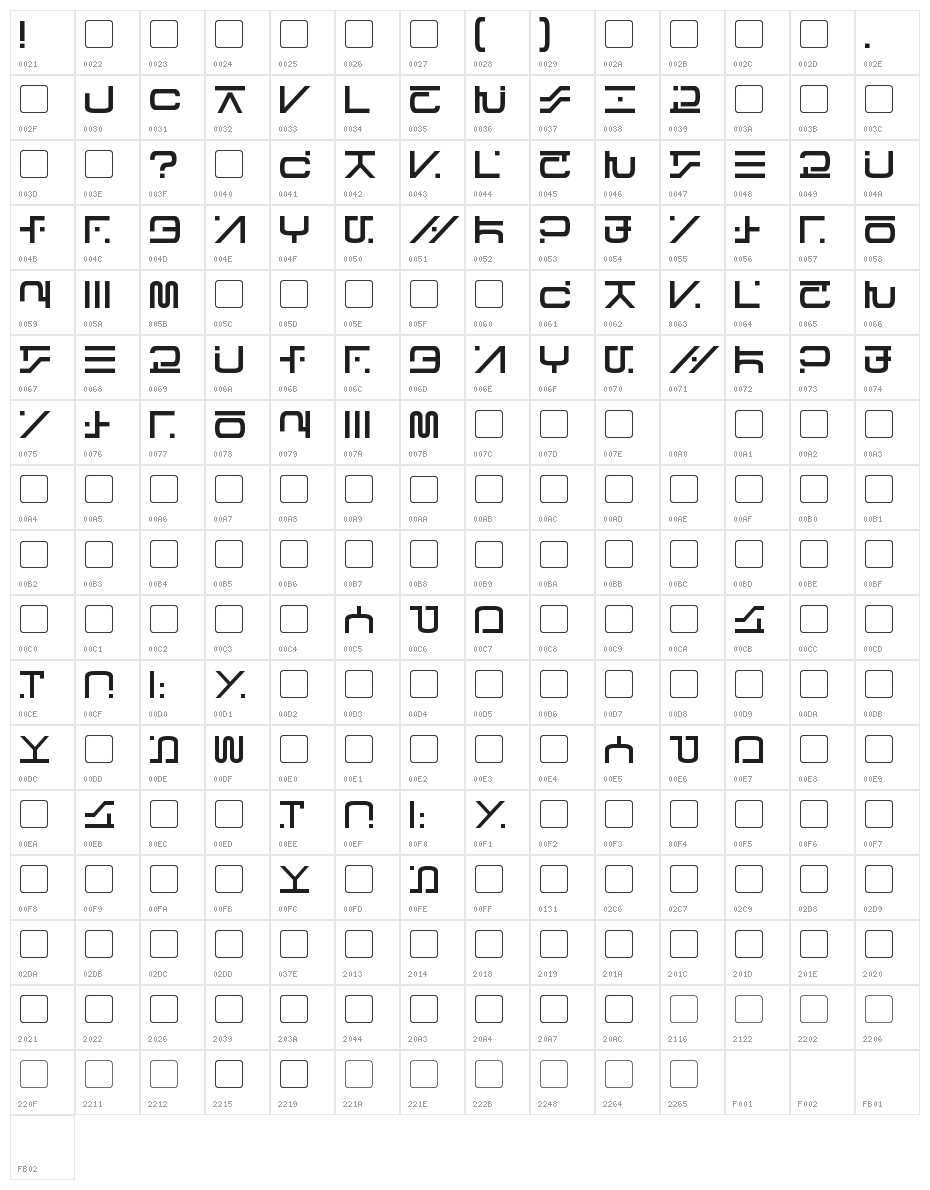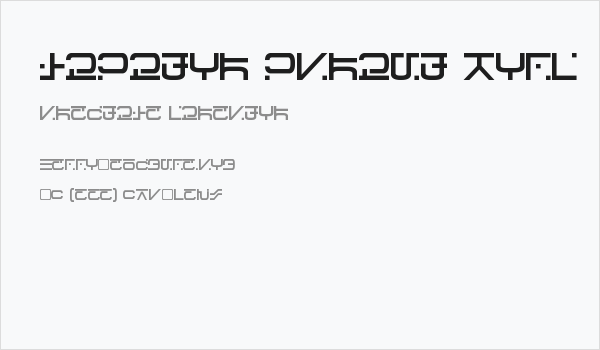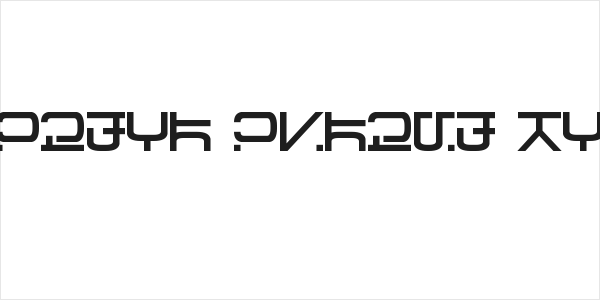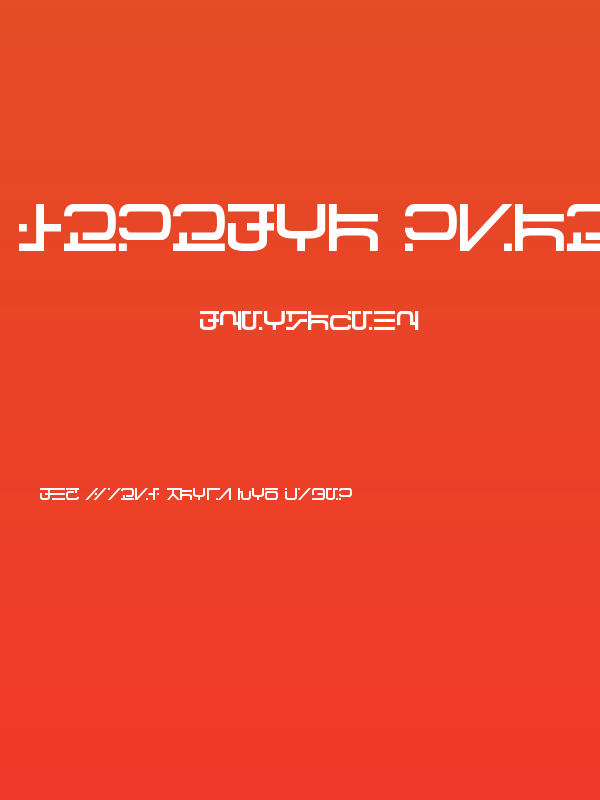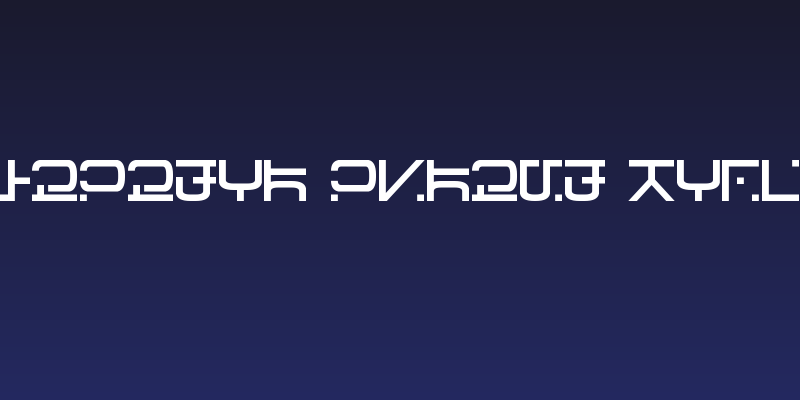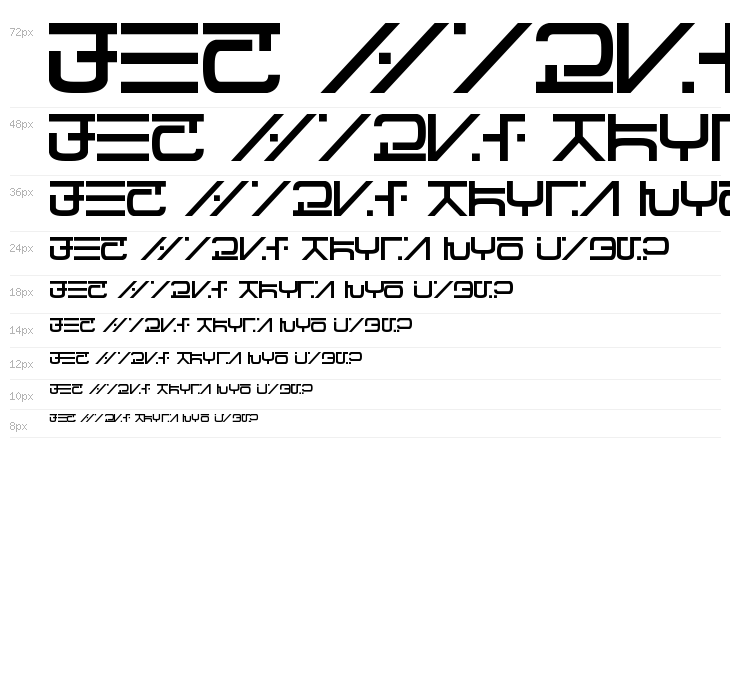
Visitor Script Bold Font
Visitor Script Bold Description
This font features a futuristic and geometric design, characterized by its bold and angular letterforms. The characters are constructed with a combination of straight lines and sharp angles, giving it a highly stylized and modern appearance. The font's unique structure includes disconnected elements within each letter, creating a sense of movement and dynamism. The overall aesthetic is reminiscent of digital or sci-fi themes, making it suitable for projects that require a cutting-edge and innovative look. The font maintains a consistent weight throughout, emphasizing its boldness and making it highly legible at larger sizes.
| Overall Style | Futuristic |
| Proposed Projects | Ideal for sci-fi themed posters, video game titles, tech branding, and futuristic advertisements. |